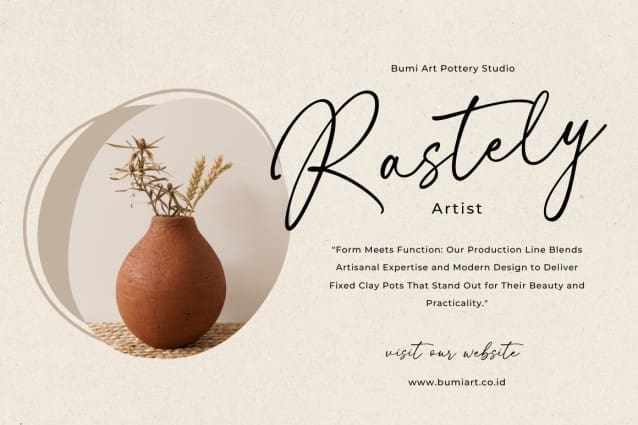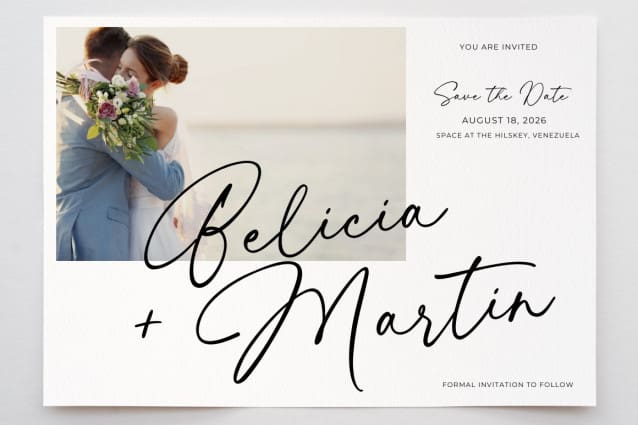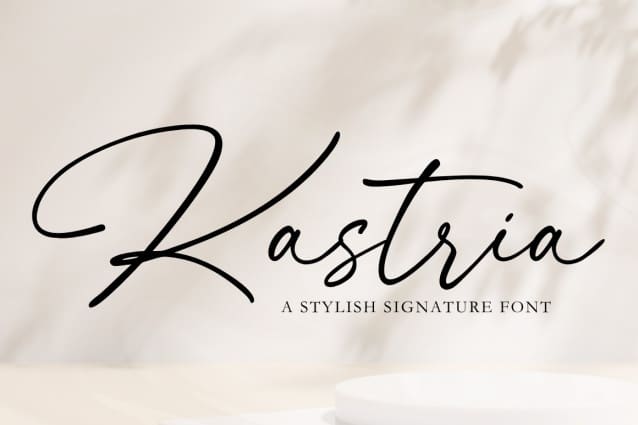
Kastria Script Font
Kastria Script Font, a font that embodies the essence of a beautiful signature. With its graceful curves and fluid strokes, this font exudes elegance and sophistication. Perfect for adding a personal touch to your projects, whether it’s branding, logos, or invitations. Kastria elevates your designs with its timeless beauty, making every signature a work of art.